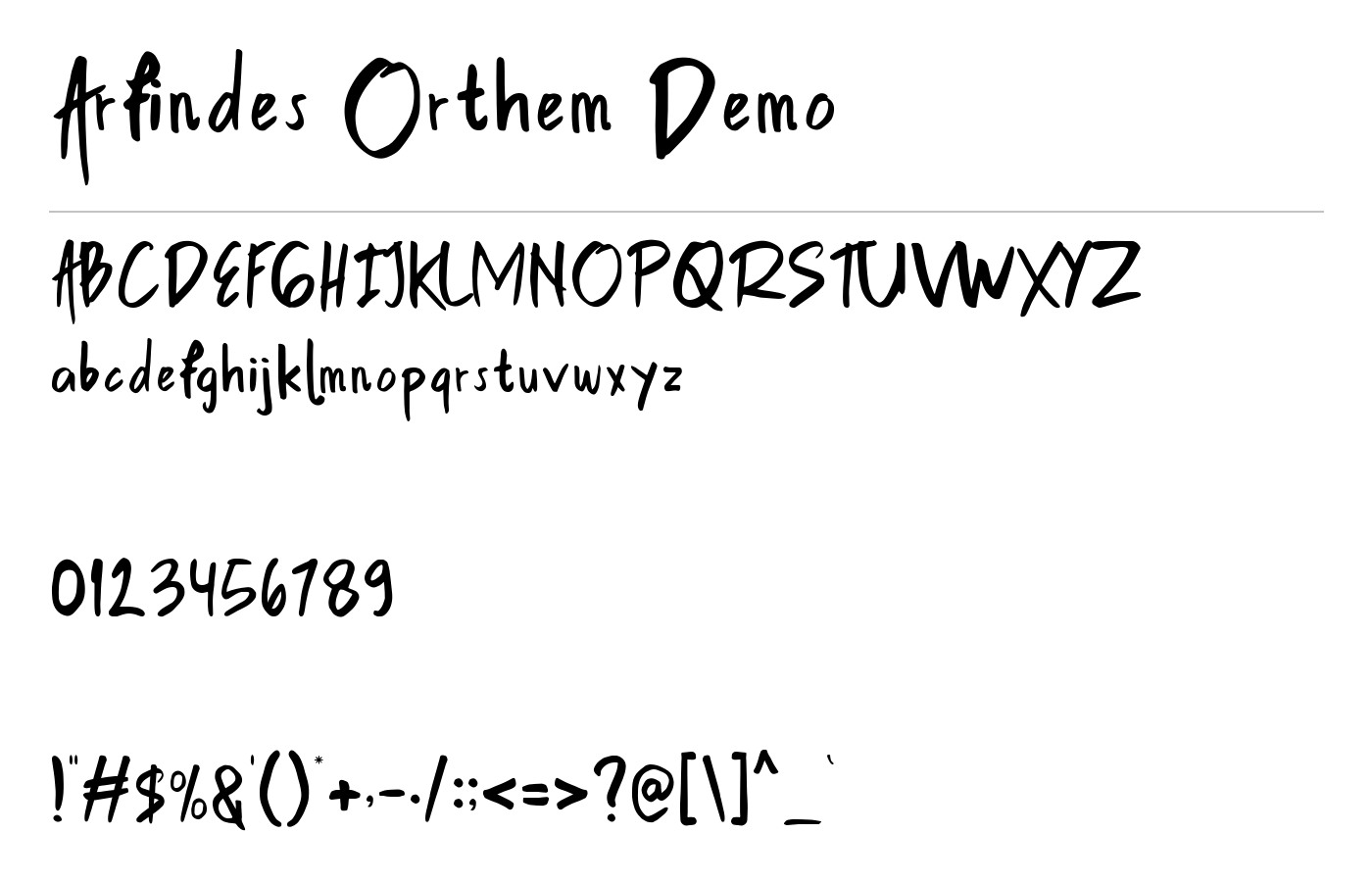
Arfindes Orthem Demo is a lively handwritten font characterized by its tall, narrow letters and uneven stroke widths that give it a natural, casual feel. Its energetic and playful personality makes it ideal for creative projects, informal branding, and personal designs where a touch of individuality and approachability is desired. This font works well in headlines, invitations, or any setting that calls for an expressive, hand-crafted look.
Arfindes Orthem Demo Font
About Arfindes Orthem Demo Font
| Font family | Arfindes Orthem Demo Font |
| Designer | Suandana Ipandemade |